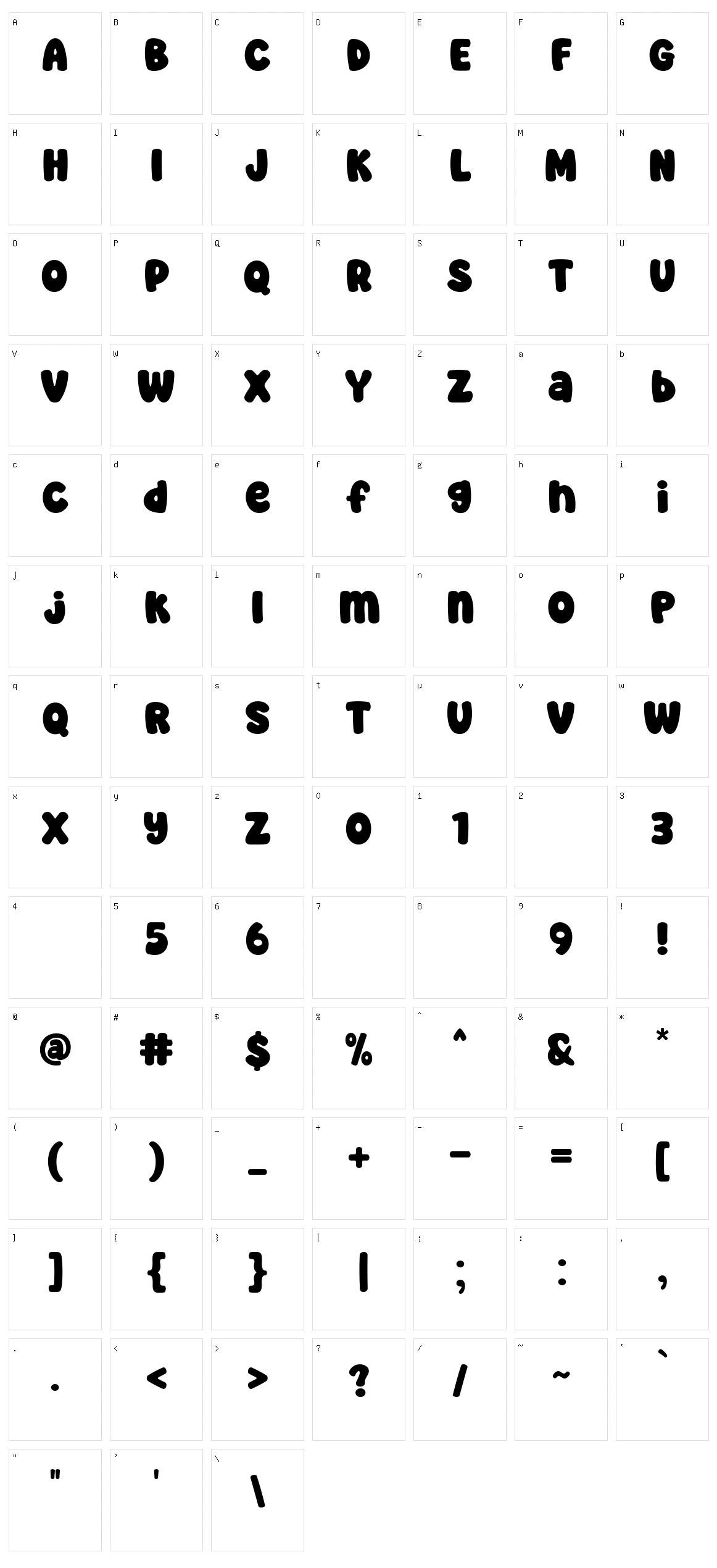
Super Disco: This font isn't just catchy, it's a full-blown invitation to the dance floor! Imagine roller skates gliding across a glitter-strewn rink, spotlights flashing on sequined jumpsuits, and a soundtrack straight out of a Saturday morning cartoon. Super Disco captures that vibrant energy and throws it onto the page in a font that's both fancy and fuss-free.